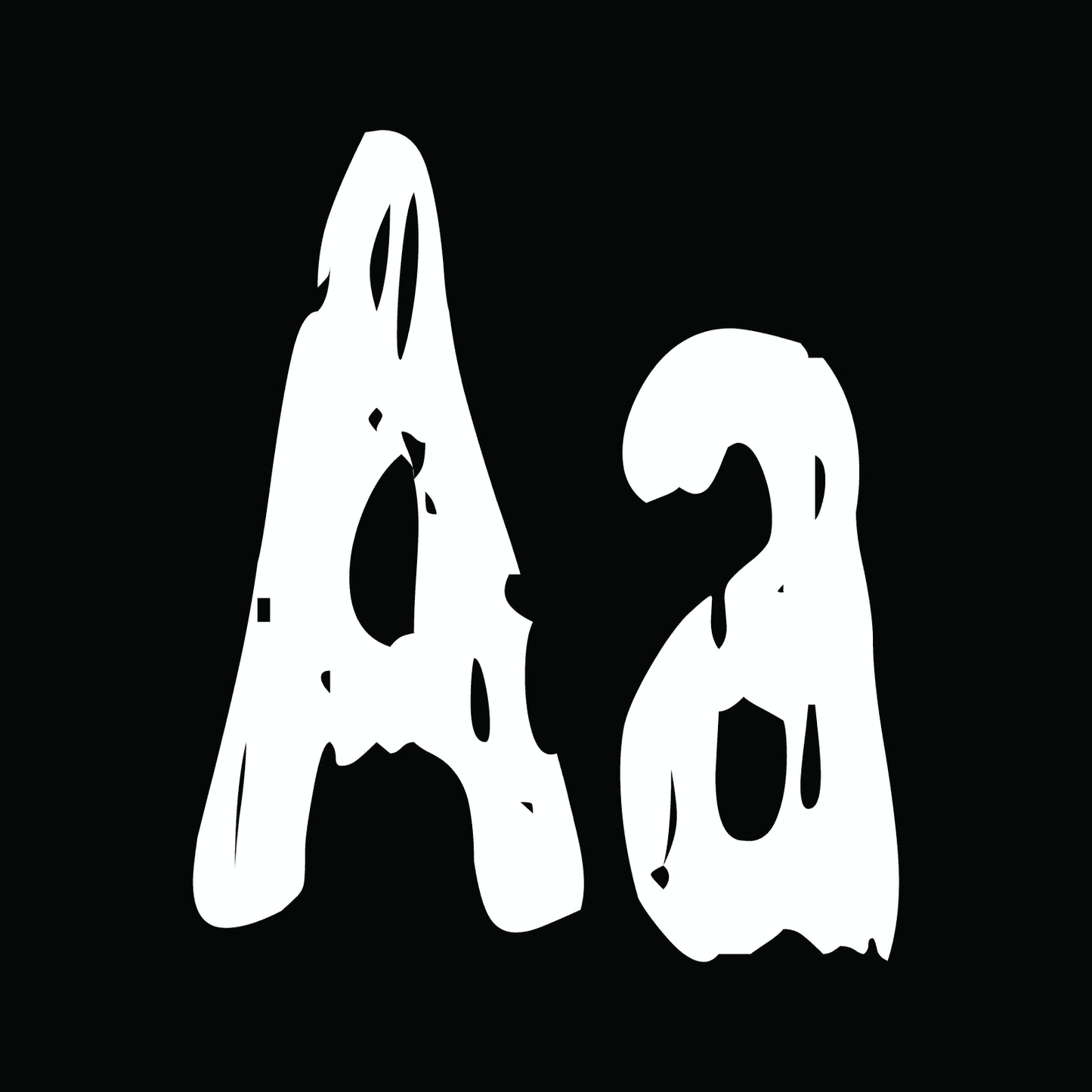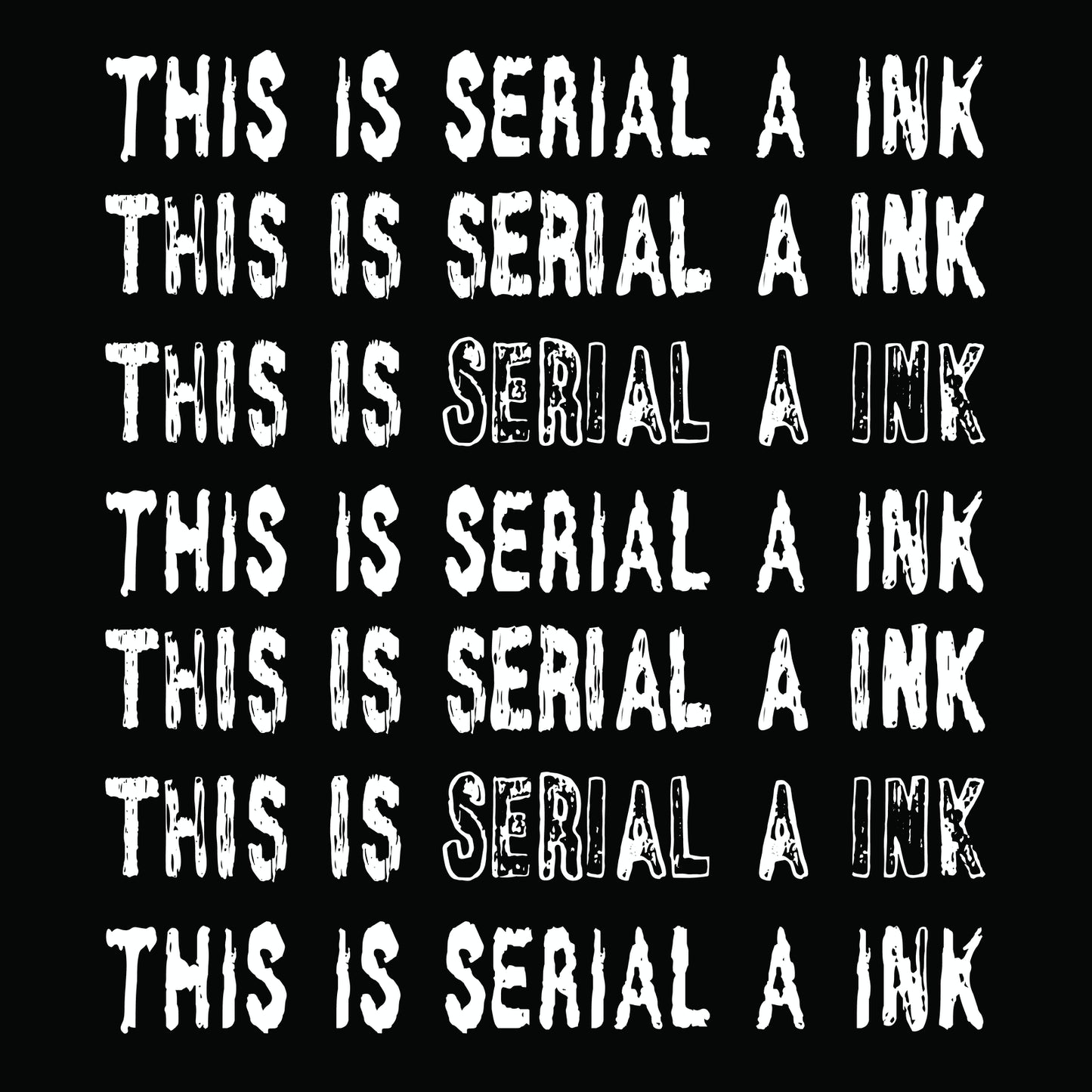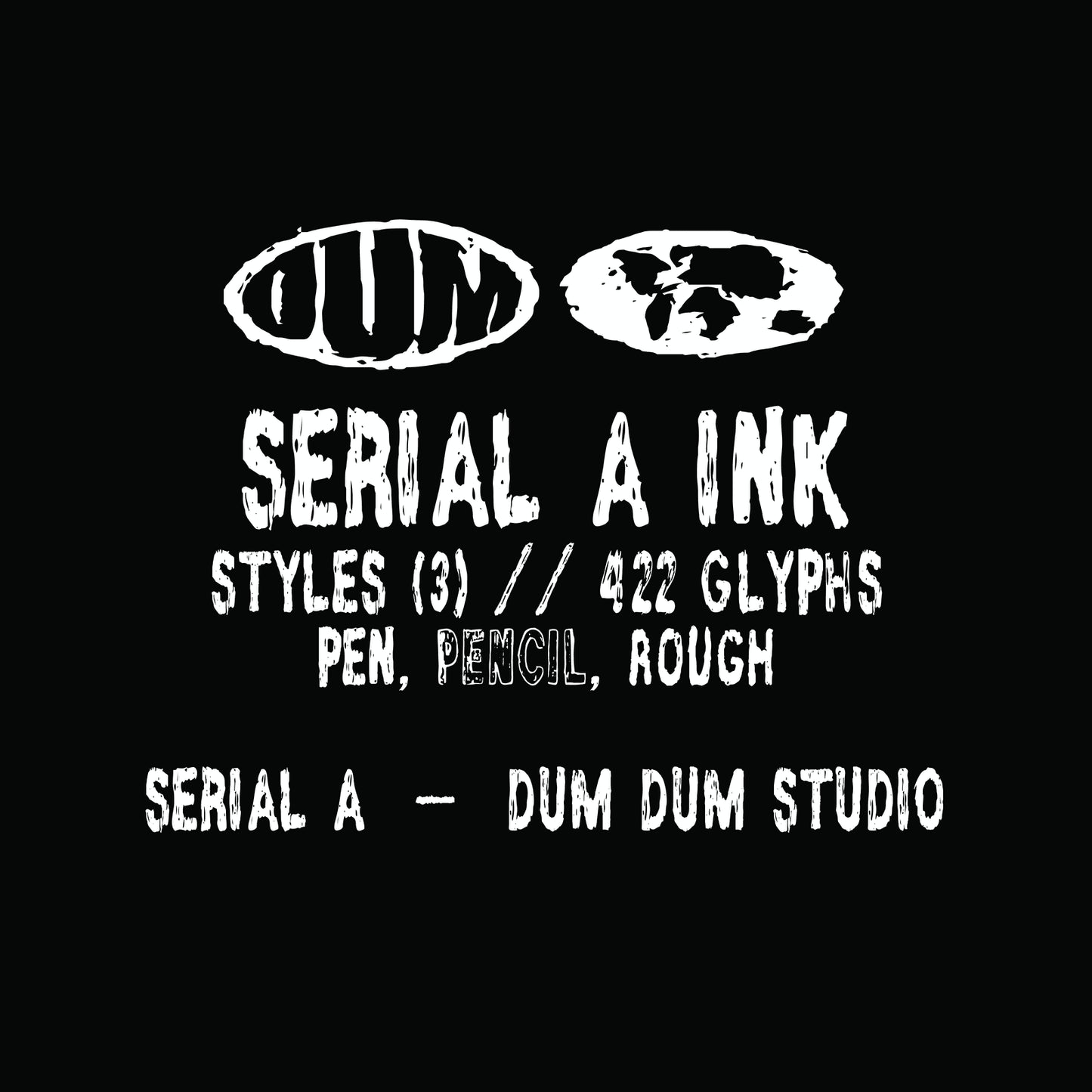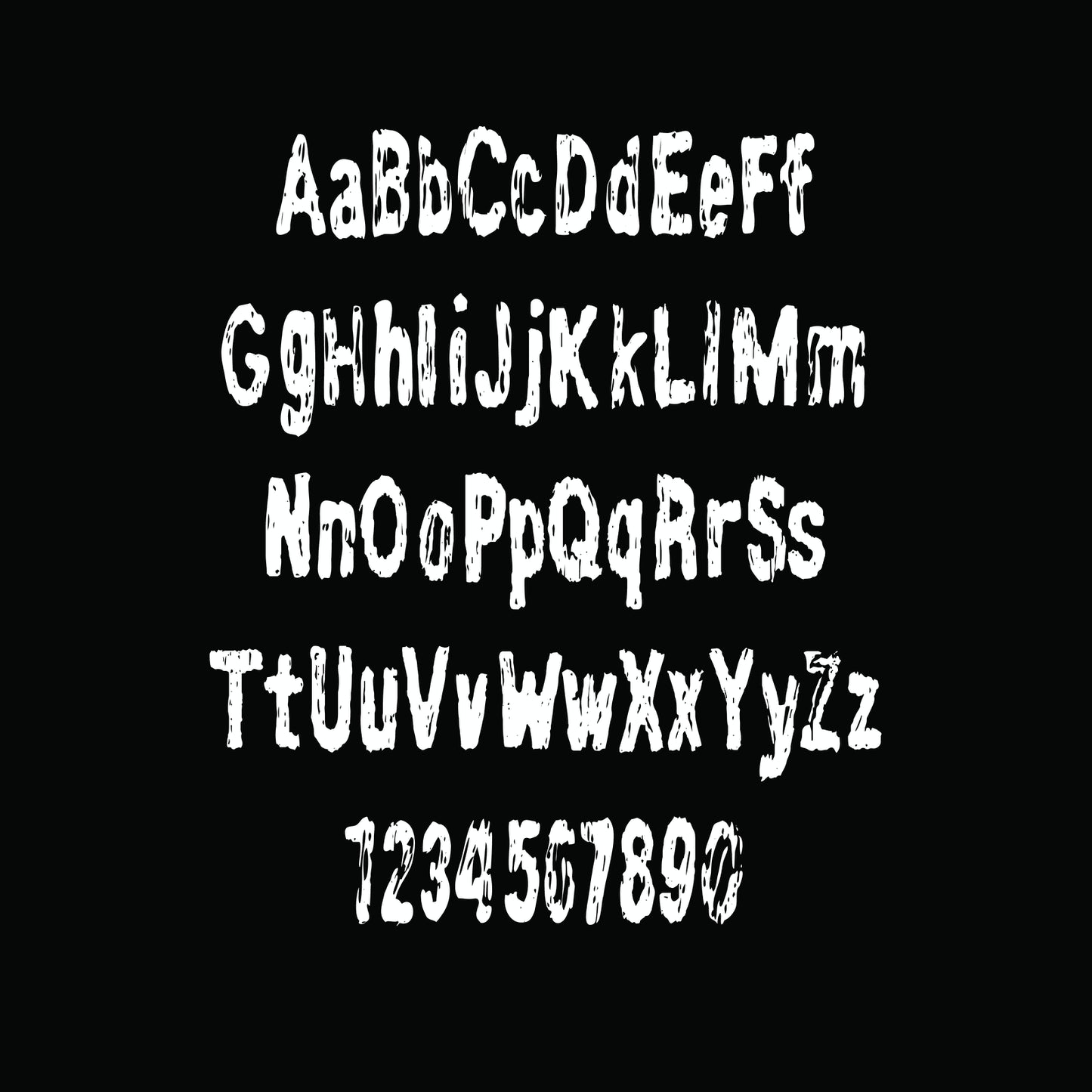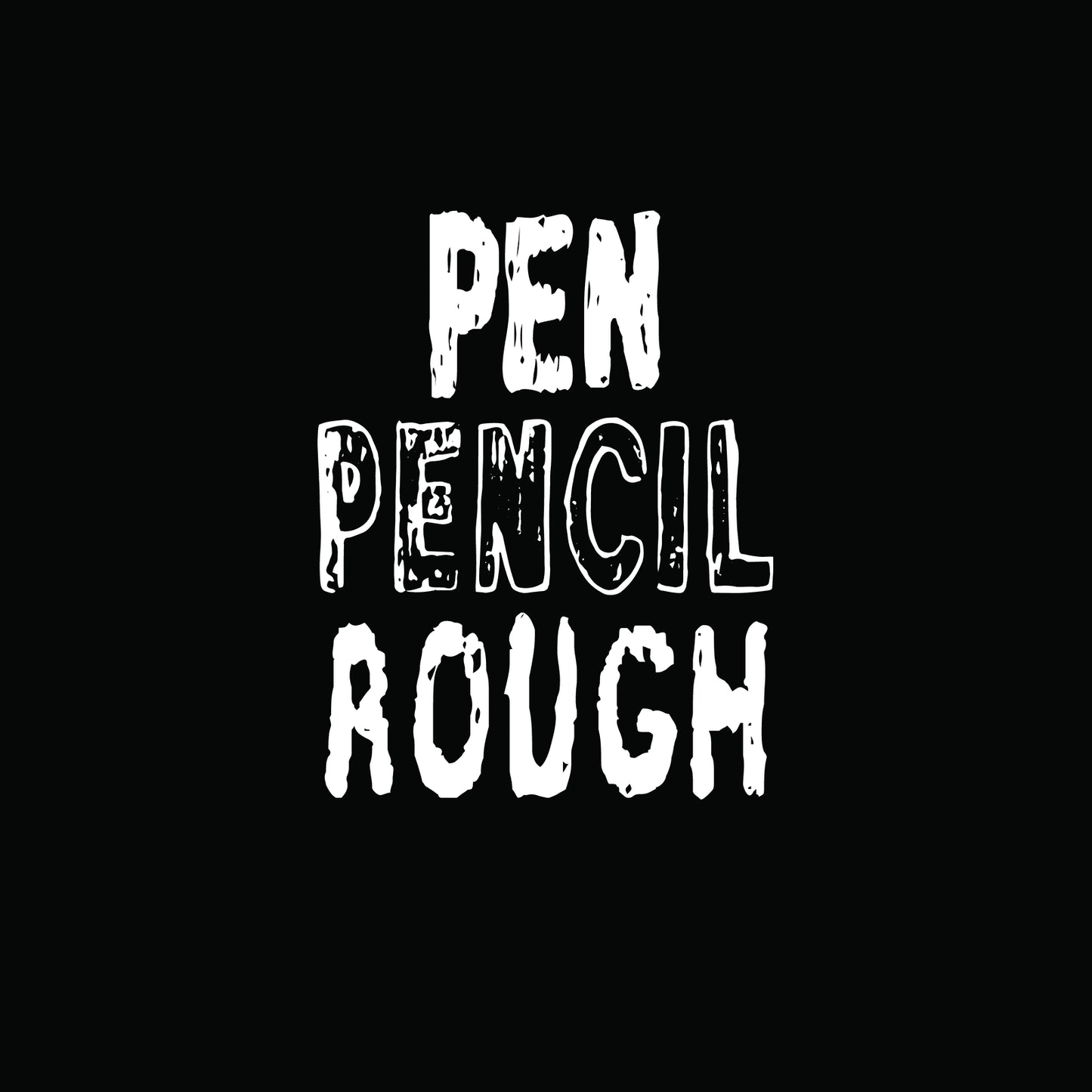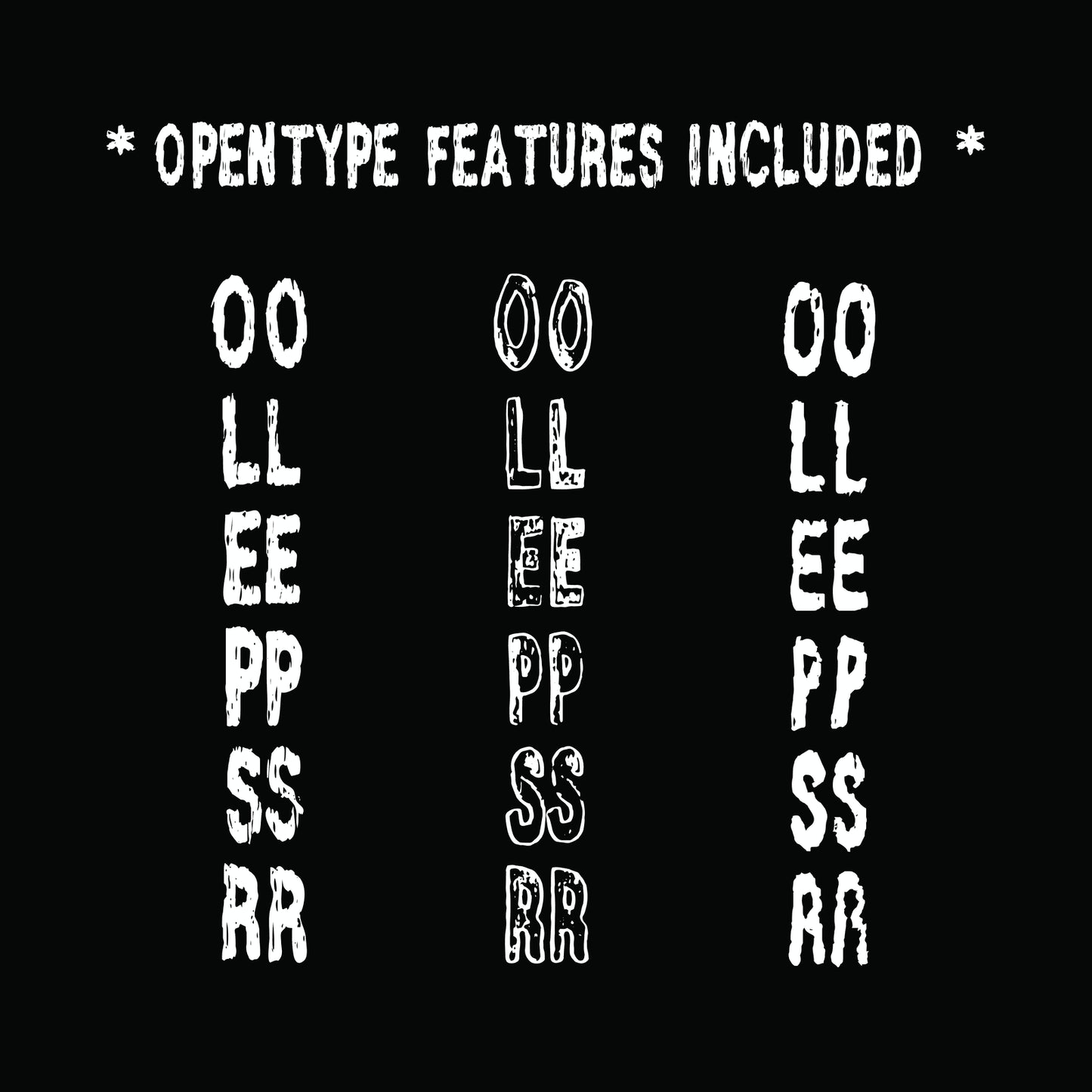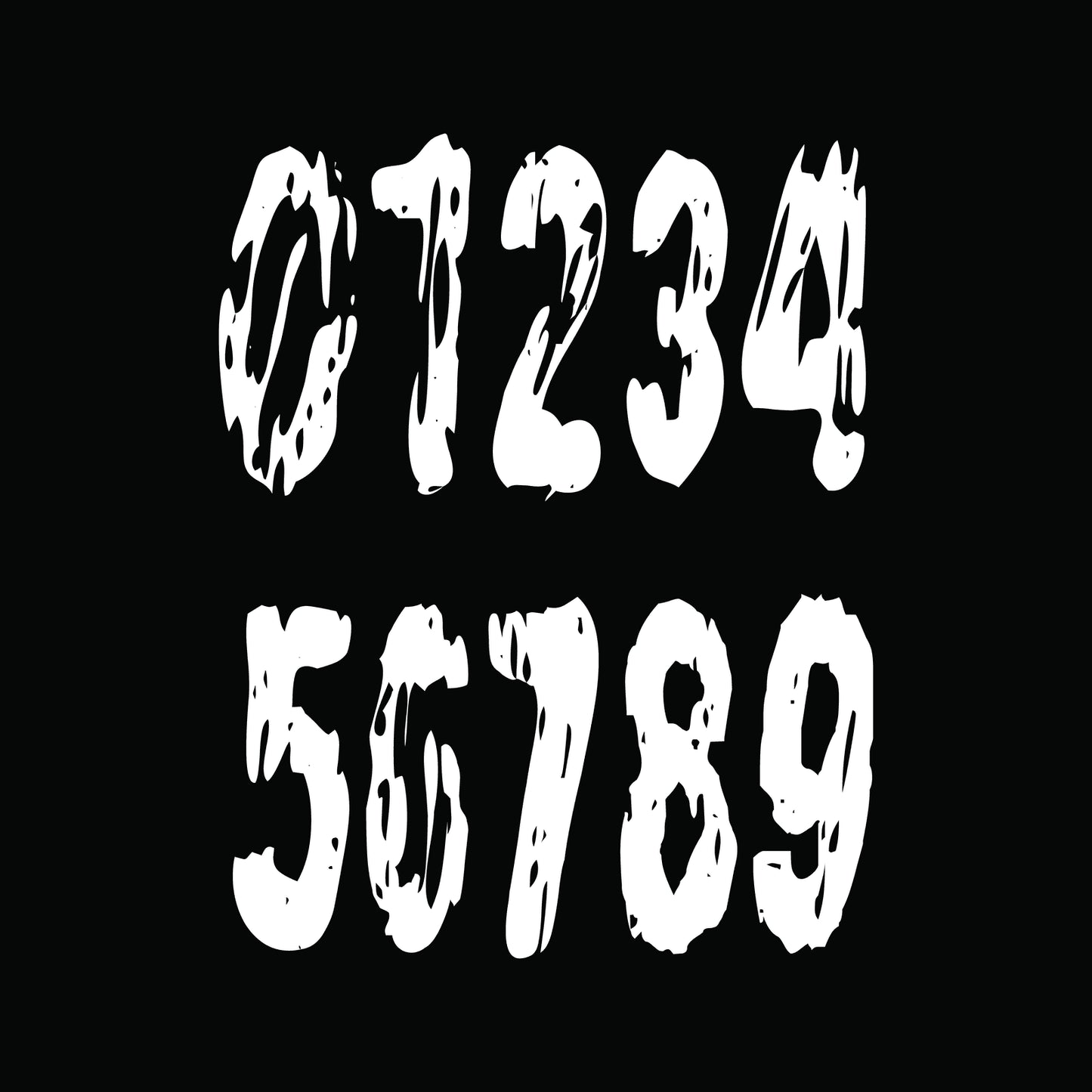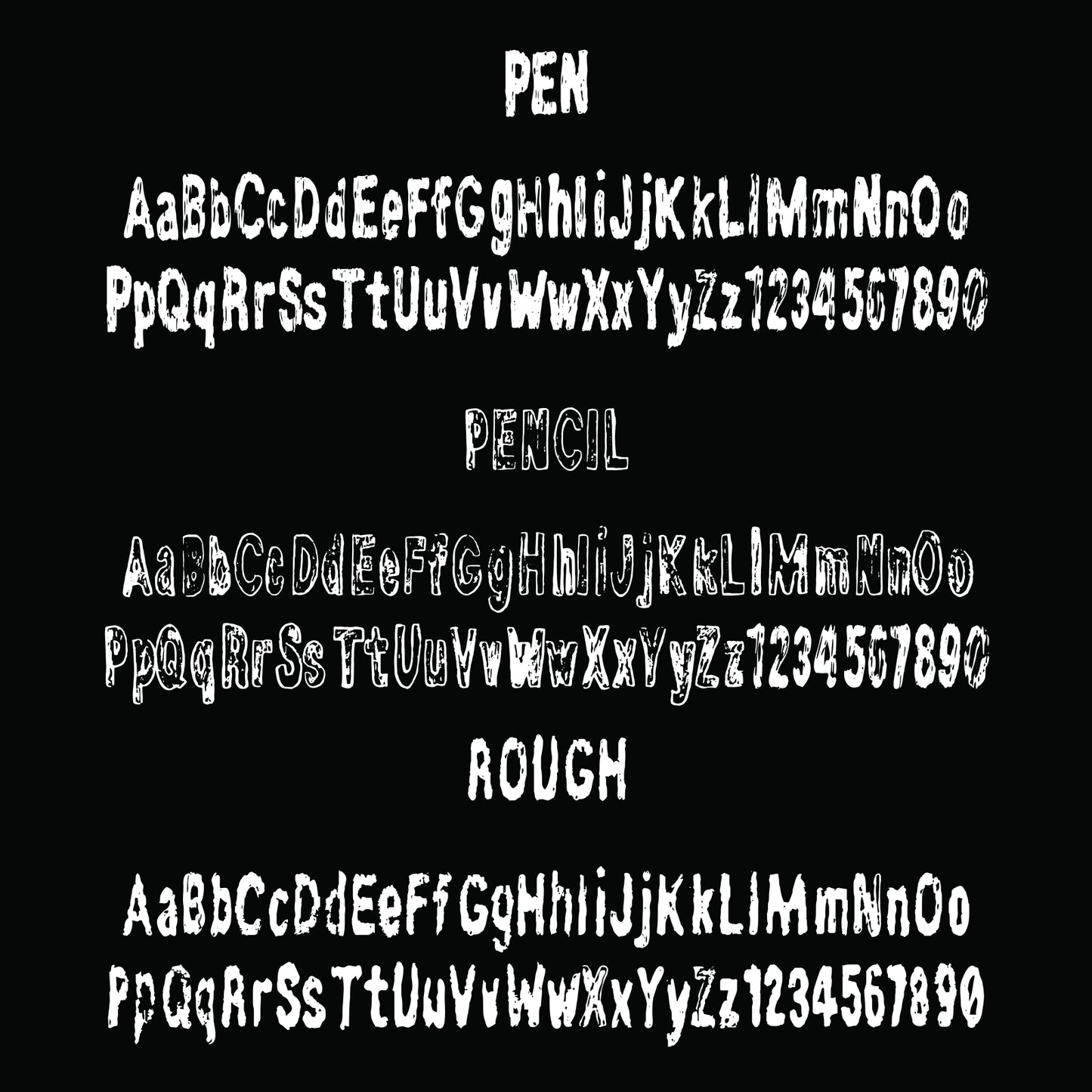
Serial A Ink
Mario Julian Gutierrez
Serial A is a bold and contemporary typeface, characterised by its highly compressed and thick letterforms.
Serial A Ink conveys a hand-drawn, raw, textured feel to the letterforms.
— 3 STYLES: PEN, PENCIL. ROUGH
— TOTAL GLYPHS: 492 GLYPHS
— LIGATURES
— ALTERNATES AND SUBSTITUTE